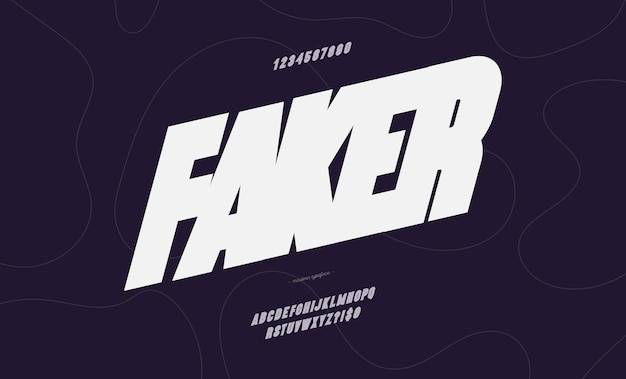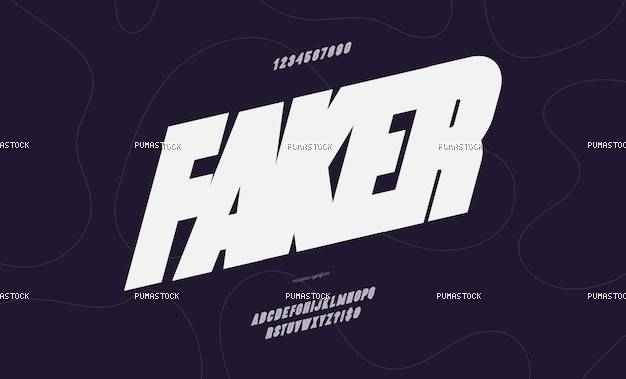
Vector faker font bold style modern typography for decoration logo poster t shirt book card sale banner printing on fabric industrial cool typeface trendy alphabet 10 eps